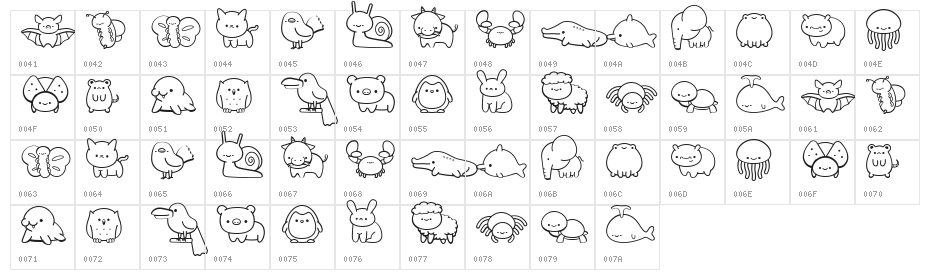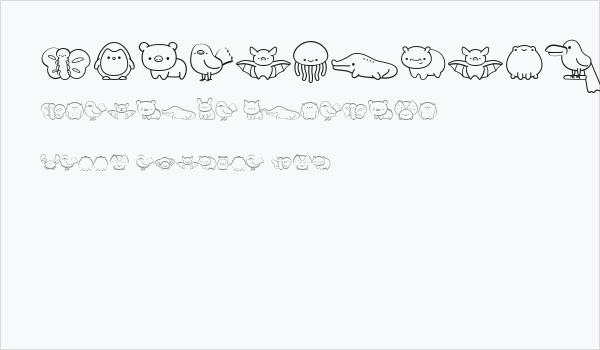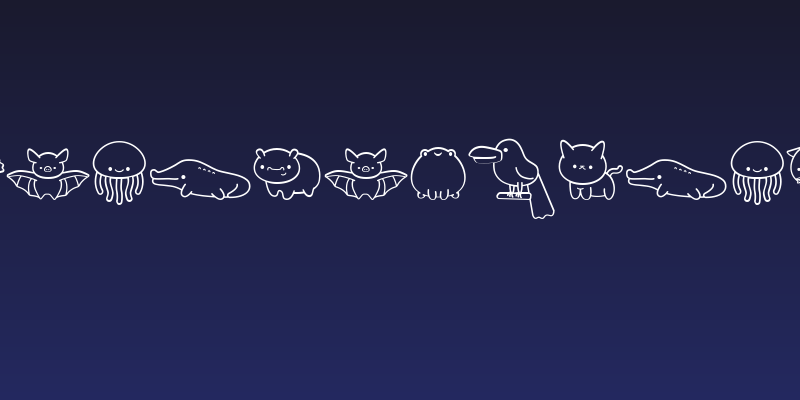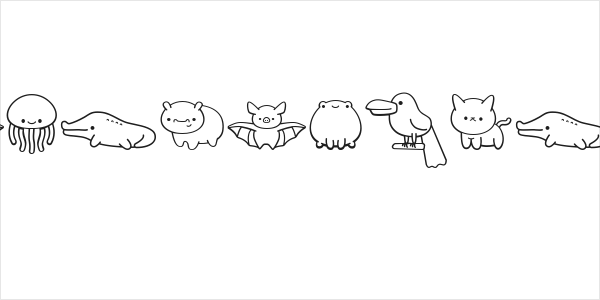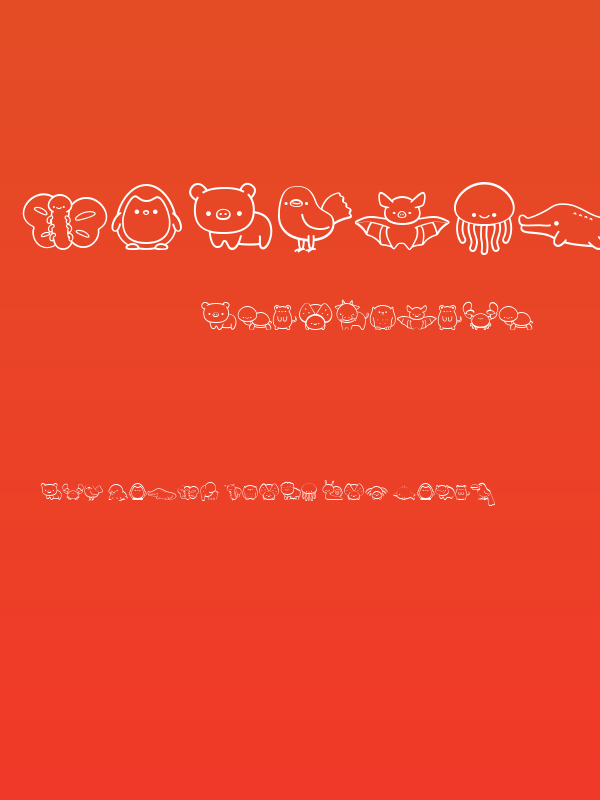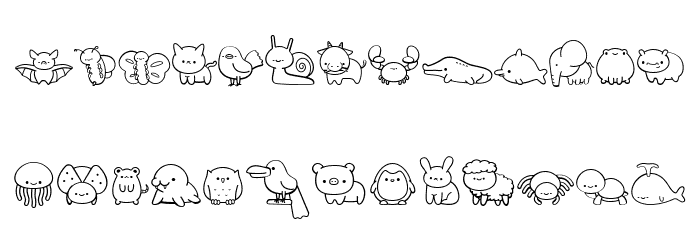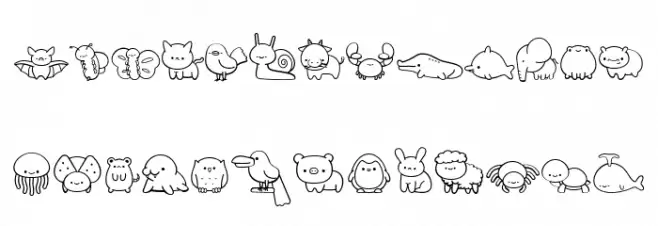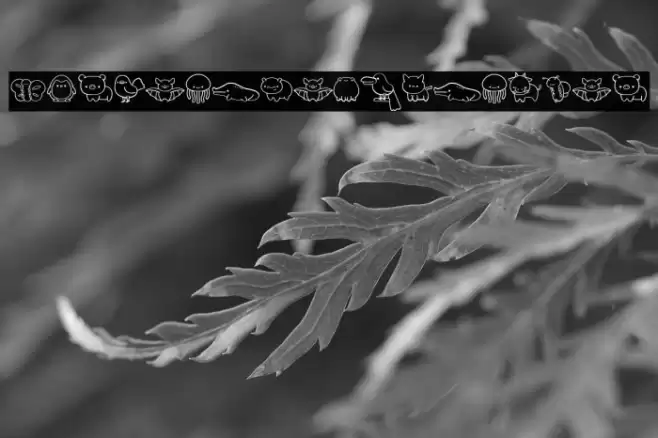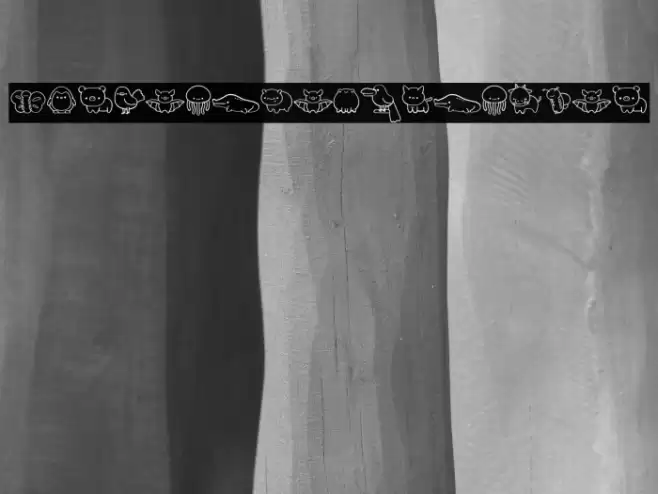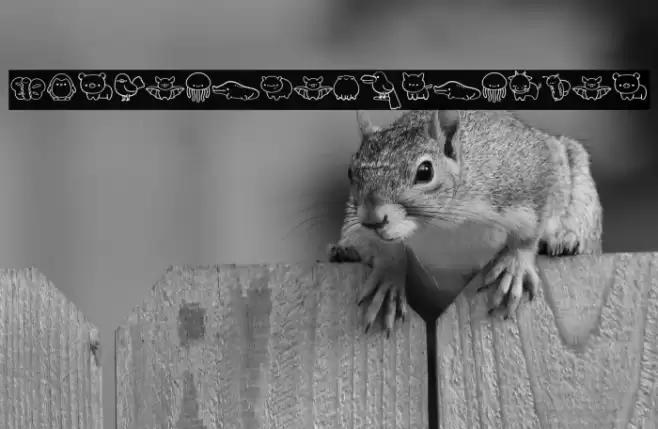
CuteAnimalsDingbat Font
CuteAnimalsDingbat Description
This is a playful and whimsical dingbat font featuring a variety of cute animal illustrations. Each character is represented by a different adorable animal, ranging from foxes and snails to whales and jellyfish. The style is simplistic yet charming, with clean lines and minimal detailing that emphasize the cute and friendly nature of each animal. The illustrations are consistent in style, making them perfect for adding a touch of fun and creativity to any project. This font is ideal for children's materials, playful designs, or any project that requires a lighthearted and joyful aesthetic.
| Use Case | Decorative elements, Illustrations |
| Proposed Projects | Ideal for children's books, educational materials, greeting cards, and playful design projects. |